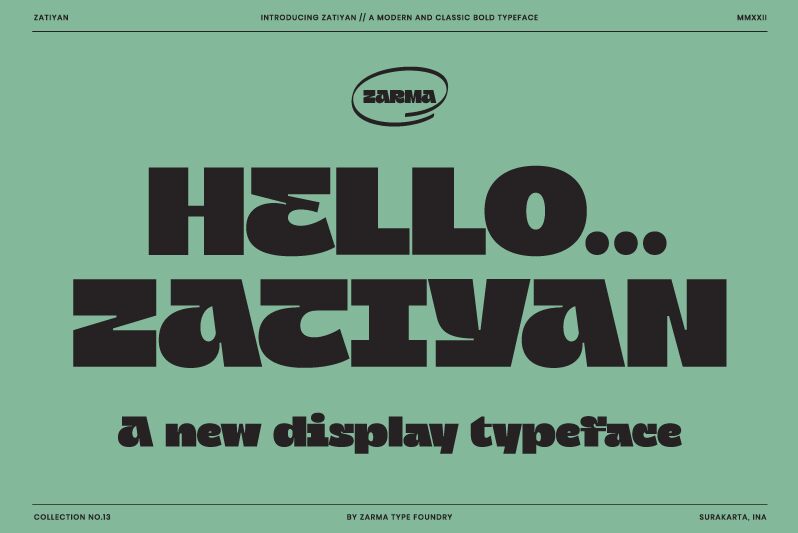
Zatiyan, a striking display font designed by Zarma Type Foundry, boasts an extra-bold weight and an expanded width. Its refined curves and bold strokes make it perfect for projects that demand attention and impact. Whether used in headlines for fashion magazines, eye-catching posters for music concerts, or attention-grabbing logos for edgy startups, Zatiyan's commanding presence will leave a lasting impression. With its unique combination of strength and style, this font is ready to elevate any design to new heights.
Zatiyan